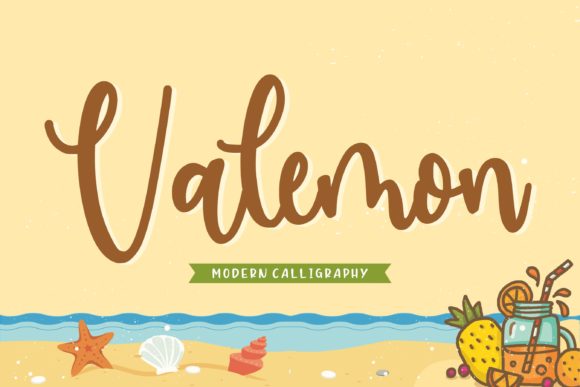
Valemon: A Handwritten Font for Editorial Design and Publishing
When you work with layouts day after day, you start to notice which typefaces earn their place in a publication. Some fonts are beautiful at first glance but fail under the weight of a headline or a pull quote. Others are reliable but lack the personality that makes a reader stop and pay attention. Valemon sits in a rare middle ground. It is a fancy handwritten font with genuine versatility, and it brings something important to editorial work: a script that is expressive without sacrificing legibility.
This typeface belongs to the Script Amp category, and it was designed for projects where you need a human touch. The gorgeous ligatures built into Valemon give it a fluid, natural rhythm that feels handcrafted rather than mechanical. For anyone who publishes blogs, magazines, ebooks, newsletters, or printable guides, that quality matters. It signals care, intention, and a design sensibility that readers pick up on, even if they cannot name it.
What Makes Valemon Different from Other Script Fonts
Many script fonts fall into two camps. They are either too ornate to read at small sizes or too simple to carry visual weight. Valemon avoids both extremes. The letterforms are elegant but not overwrought, with swooping strokes that feel deliberate rather than decorative for the sake of decoration. The ligatures are where the font really shines. They connect letters in a way that mimics natural handwriting, giving every word a cohesive flow. This makes Valemon especially effective for short blocks of text where you want to create intimacy, such as a dedication page in an ebook or a signature line in a newsletter.
The handwritten quality also brings warmth to digital publications that can sometimes feel cold or overly polished. Whether you are designing for a lifestyle blog or a coaching workbook, Valemon adds a layer of personality that a standard serif font or sans serif font cannot replicate. It is a display font by nature, best used where you want to draw attention, but it is refined enough to sit comfortably alongside other typefaces without clashing.
Using Valemon in Blog Headers and Magazine Covers
The first thing a reader sees is your header or cover. That is where Valemon does some of its best work. For a blog, using Valemon as the primary headline font can immediately signal the tone of your content. A travel blog, for instance, can use it to suggest adventure and spontaneity. A wedding planning site can rely on its graceful curves to evoke romance and attention to detail. The font scales well, so it holds up at large sizes on a desktop screen and remains clear on mobile devices when used for titles.
In digital magazine covers, Valemon works beautifully for the main title or for accent words that need emphasis. Pair it with a clean sans serif font for subtitles or author names, and you create a visual hierarchy that guides the reader’s eye naturally. The contrast between a handwritten script and a structured sans serif is one of the most reliable layout strategies in editorial design. It gives you both energy and stability.
Adding Personality to Ebook Titles and Chapter Openers
Ebooks are a huge part of independent publishing, and they often suffer from generic formatting. Valemon can change that. For a recipe ebook, using the font for recipe titles or section dividers makes the pages feel like a personal collection rather than a mass-produced document. For a coaching guide or self-help ebook, it softens the tone and makes the content feel more approachable. Chapter openers benefit especially well from a handwritten font. A single word or short phrase set in Valemon can set the mood for the pages that follow, giving readers a visual pause before they dive into the next section.
Because Valemon includes multiple ligatures and alternate characters, you can vary the look of repeated words across a publication. This is useful for chapter headers that follow a pattern but need subtle variation to avoid monotony. If you are creating a series of ebooks or a multi-part guide, consistency in typography builds brand identity, and Valemon gives you enough flexibility to keep that identity fresh.
Quote Graphics, Pull Quotes, and Newsletter Accents
Pull quotes break up long articles and give readers a reason to keep scrolling. Valemon is ideal for this purpose. Its handwritten quality makes a quoted line feel personal, as if someone is speaking directly to the reader. In blog posts, I often use Valemon for pull quotes set at a medium size, paired with a serif font for the body text. The contrast creates a natural focal point without needing extra graphic elements. For newsletter graphics, the font works well for short announcements, greetings, or call-to-action phrases. A simple line like “Start your journey” or “Read the full story” becomes more inviting when it looks hand-lettered.
Social media graphics are another natural fit. If you share quotes or excerpts from your publications on Instagram or Pinterest, Valemon helps your text stand out in a crowded feed. The ligatures and fluid strokes catch the eye, and the font retains its character even at smaller sizes when used for short text.
Practical Examples for Different Publication Types
To make this concrete, here are a few ways I have used Valemon in real projects:
For editorial designers and content creators who care about how their words look as much as what they say, Valemon is a tool worth trying. It brings warmth, motion, and a handcrafted quality to modern typography, and it does so without complicating your workflow. That is a rare combination in any font, and it is exactly what makes Valemon a valuable addition to your design assets.